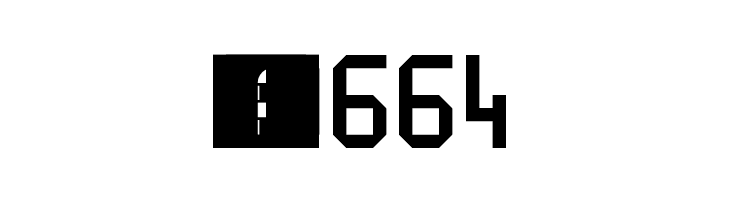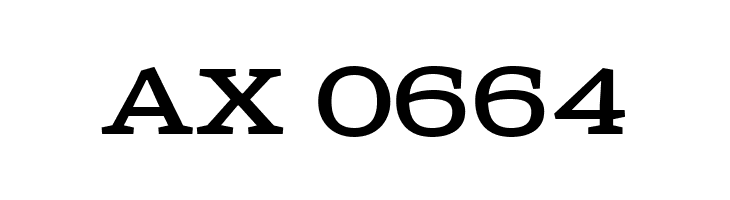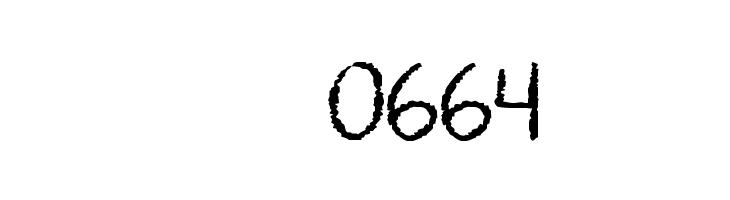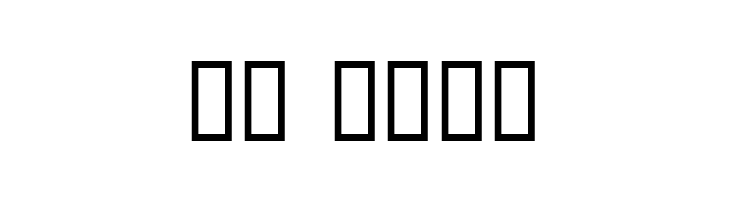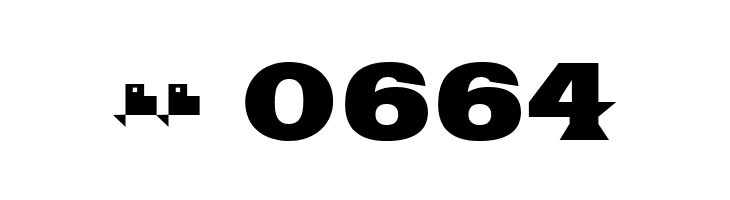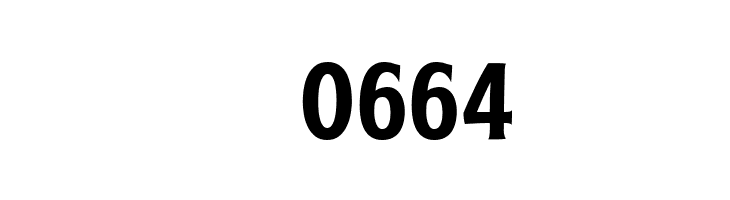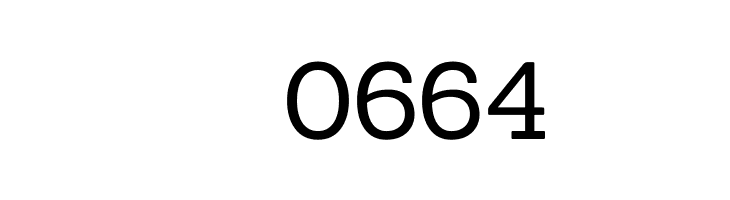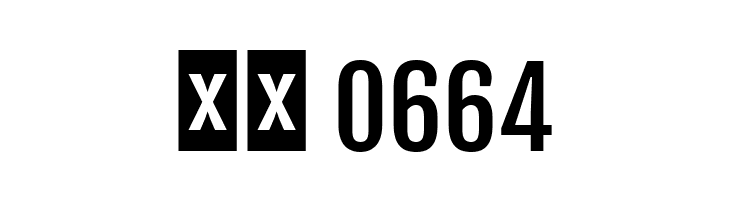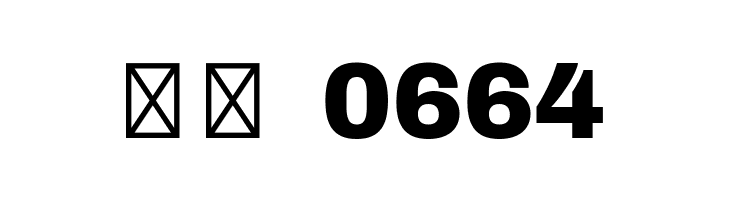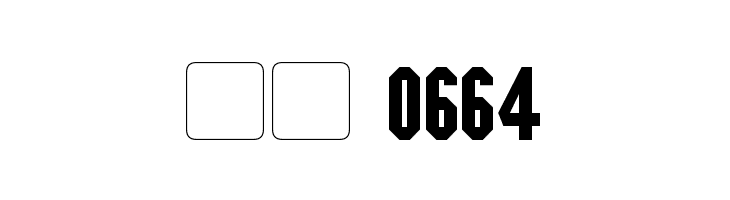
A bold, modern sans-serif font with geometric lines and strong presence.
A bold, modern slab serif font with strong, block-like serifs.
A bold, modern serif font with strong, angular serifs and cohesive design.
A bold, modern font with strong geometric shapes and clean lines.
A bold, classic serif font with strong strokes and subtle curves.
A lively and playful handwritten font with fluid, connected strokes.
A bold, classic serif font with strong, pronounced strokes.
A bold, industrial-style font with a metallic texture and strong, block-like letterforms.
A bold, modern sans-serif font with strong vertical lines and uniform strokes.
A bold and robust slab serif font with strong, block-like serifs.
A bold, italicized font with strong strokes and a modern, dynamic style.
A bold, italicized font with strong, thick strokes and a modern style.
A bold, modern typeface with strong, thick strokes for impactful design.
A bold, modern sans-serif font with clean lines and strong geometric shapes.
A bold, modern font with tall, narrow letterforms and strong vertical emphasis.
A bold, impactful font with strong, assertive characters.
A classic slab serif typeface with strong serifs and moderate stroke contrast.
A bold, modern sans-serif font with clean lines and a strong presence.
A bold, impactful typeface with thick strokes and strong presence.
A bold serif font with a classic yet modern style, featuring strong vertical lines and subtle curves.
A bold, geometric font with strong, sharp angles and uniform structure.
A bold, modern font with strong, uniform strokes.
A robust slab serif font with modern elements and strong, bold strokes.
A bold, geometric font with strong, uniform strokes and modern appeal.